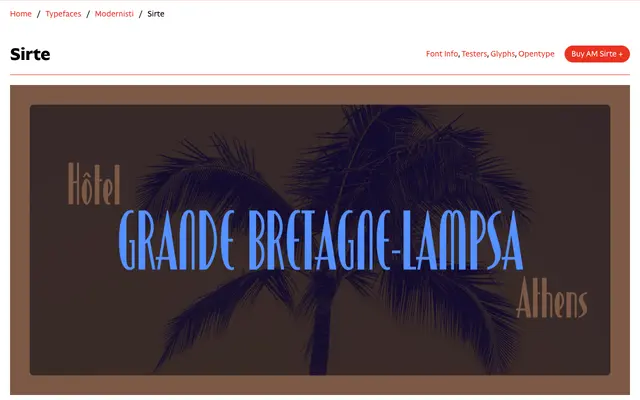
AM Sirte
CAST · Fabrizio Falcone · 2024
AM Sirte specimen from CAST
A digital revival of a 1940 Italian wood type by Xilografia di Verona, revived by Fabrizio Falcone with regularised contrast and unified rounded forms.
The original Sirte was a condensed wood display type produced by Xilografia di Verona around 1940, characterised by strong thick/thin contrast, wide-open apertures and idiosyncratic letterforms including rounded E, M and N. Fabrizio Falcone's revival for CAST standardises the original's inconsistencies, bringing coherence to the interplay of rounded shapes and sharp angles without erasing its distinctive personality. Part of CAST's Modernisti series, it works at headline scale where its compressed proportions and high contrast can be properly read.
A highly condensed sans with pronounced thick/thin contrast and modular letterforms, originating from a 1940 Italian wood type. The strong contrast and idiosyncratic forms place it firmly in the display category rather than standard sans-serif.